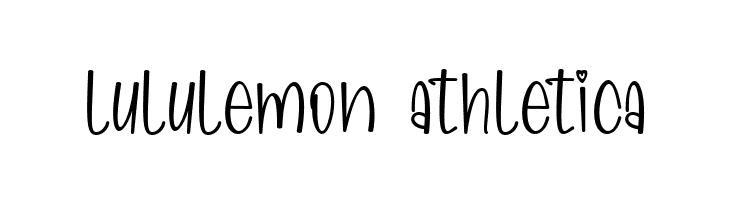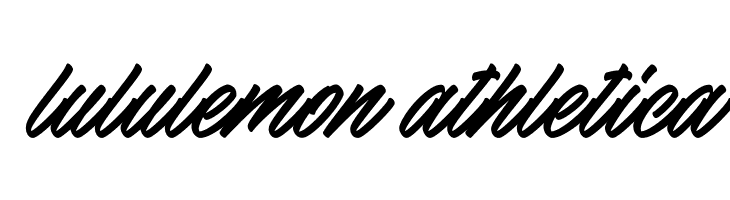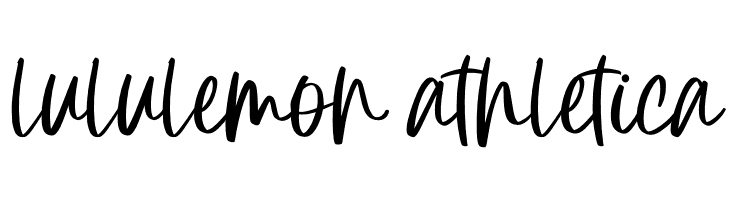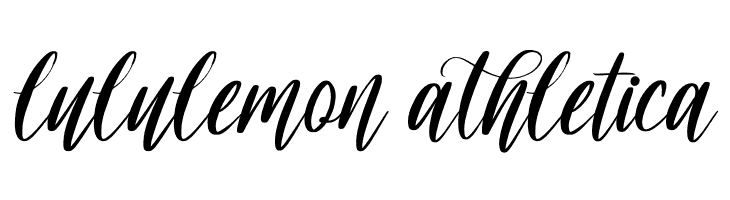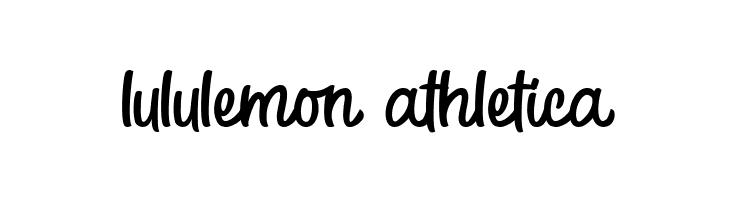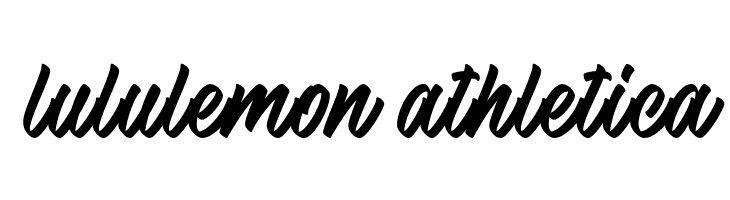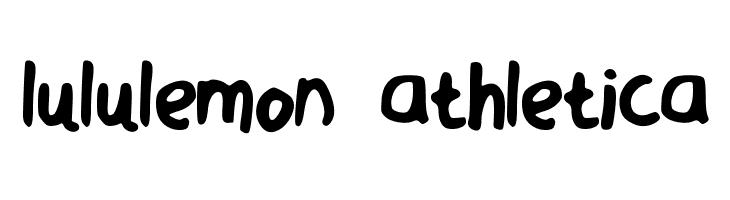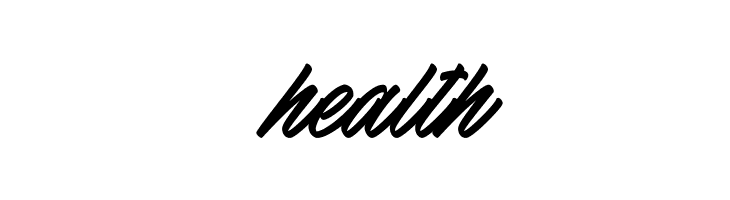
A lively, handwritten font with fluid strokes and playful curves.
A bold, dripping font with a horror-inspired, decorative style.
A playful, handwritten script font with bold strokes and smooth curves.
A playful, handwritten font with tall, narrow letters and decorative elements.
Bold, circular icon set for tech and social media brands.
A playful, handwritten font with a smooth, marker-like appearance.
An elegant, flowing script font with bold, confident strokes.
A bold, dynamic script font with a handwritten appearance.
A bold, italic script font with a dynamic and fluid style.
A playful and decorative font with whimsical swashes and flourishes.